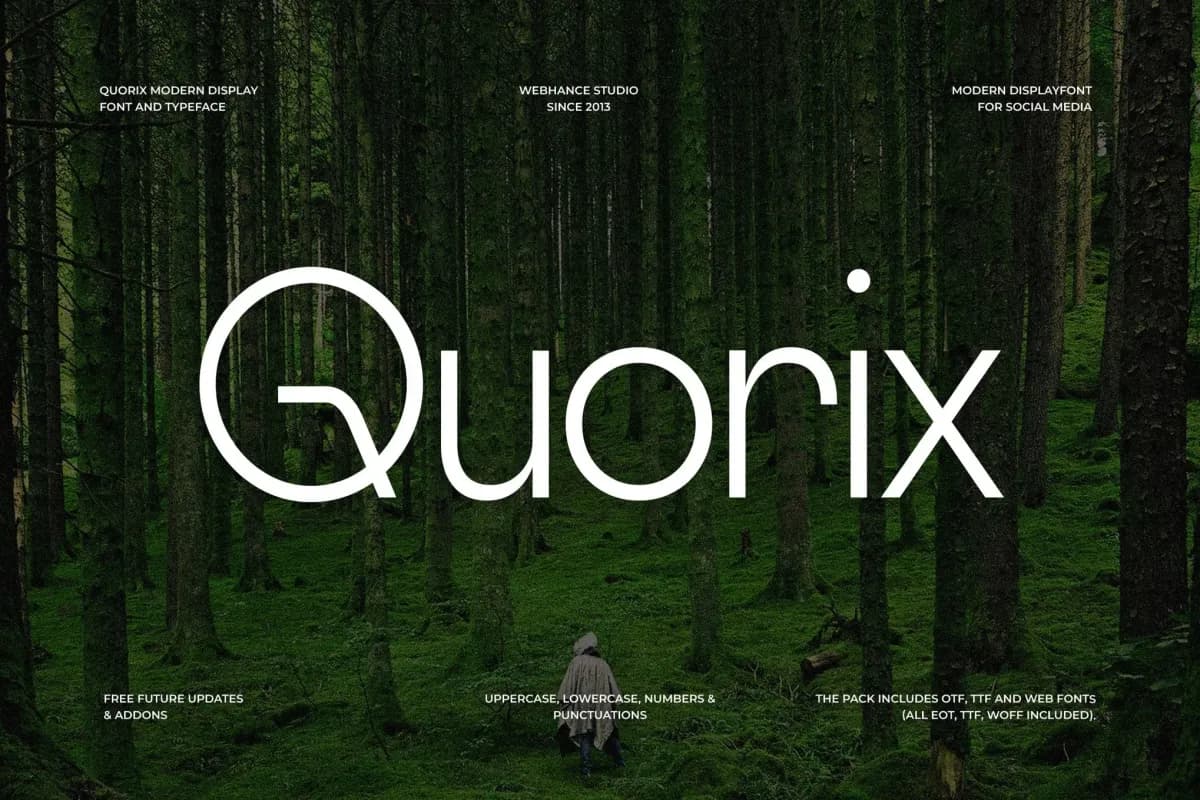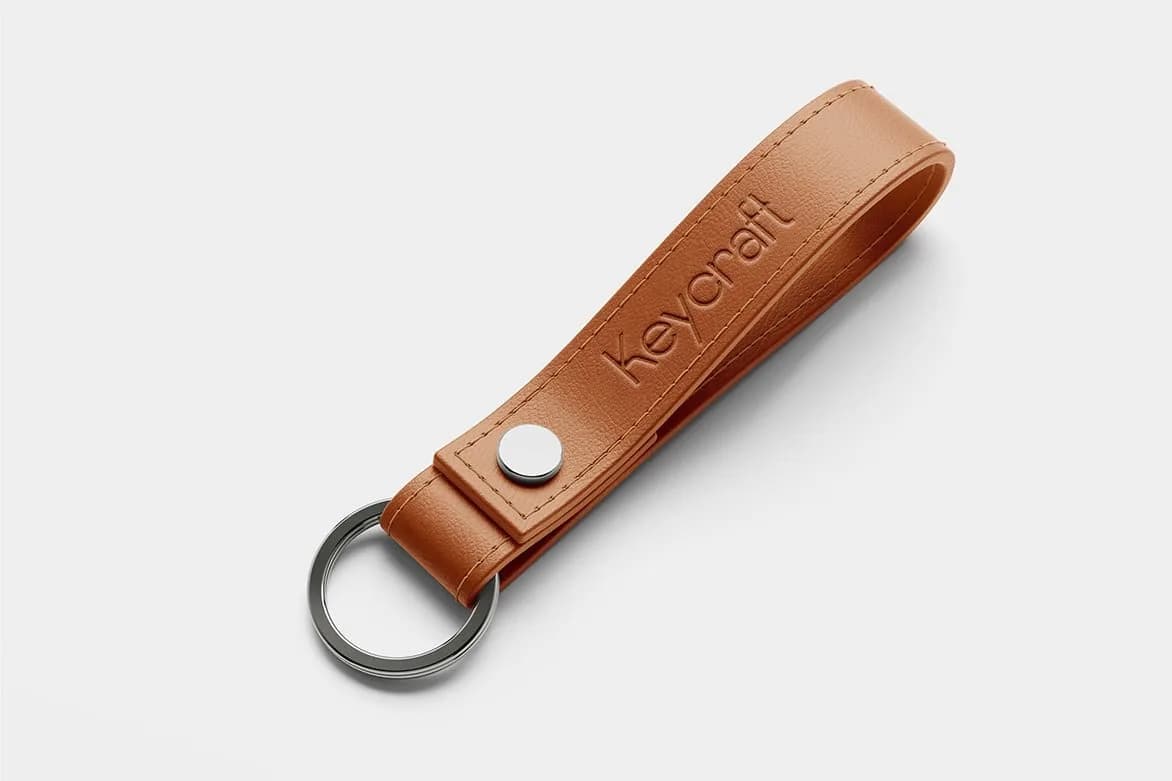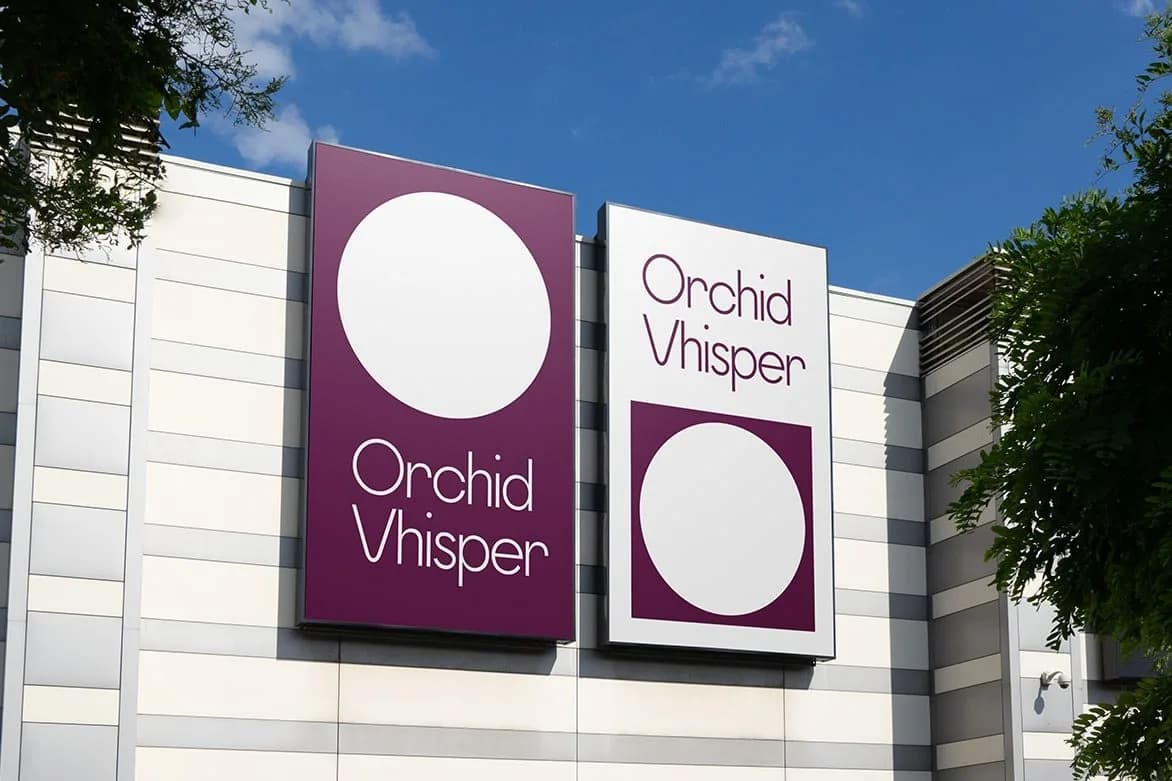
Quorix
Meet Quorix, a clean and versatile sans-serif typeface crafted by Webhance Studio with simplicity and elegance as its core focus. Currently available in a single weight (with more styles coming soon!), Quorix offers exceptional readability and a refined aesthetic, bringing sophistication to all your professional and modern design work. This font includes full uppercase and lowercase letters, numbers, and punctuation. The package provides OTF, TTF, and full Web Fonts (EOT, TTF, WOFF) for seamless integration, along with free future updates and feature additions.